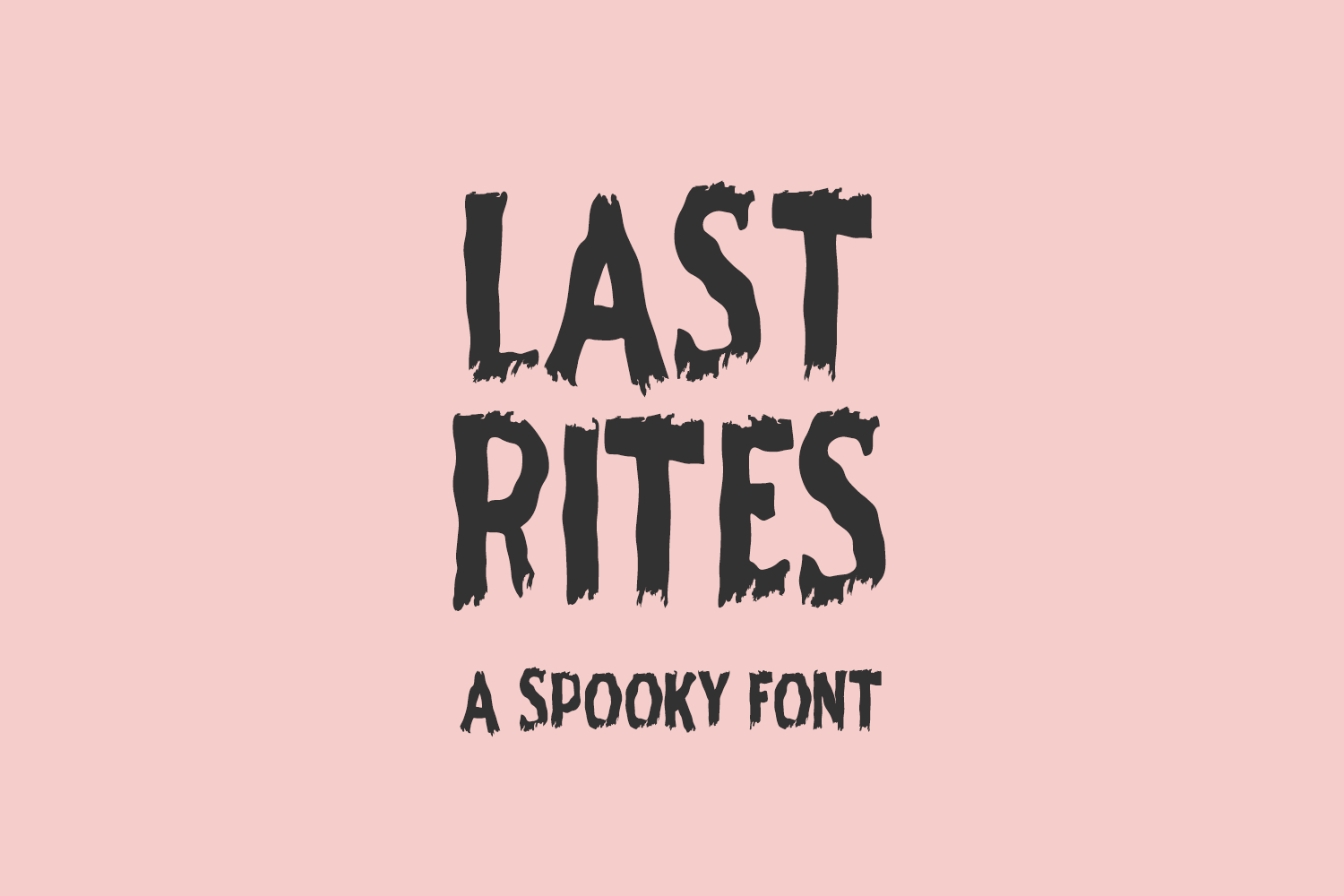
Last Rites Display Font
Last Rites Display is an all-caps Halloween font with worn away sections that give each letter the appearance of a weathered painted sign that has been out in the elements for years. You might imagine this font being used in your typical teen horror movie where young people discover an old abandoned cabin in the woods with a KEEP OUT sign, and then all (predictable) hell breaks loose. Use this font for all things horror & Halloween that need a creepy, old aesthetic - shirts, mugs, hats, signs, and other decor. May not be a fantastic fit for vinyl cutting, so proceed at your own risk - great for print then cut, though!
- full upper + lowercase characters (all caps programmed into both upper & lowercase)